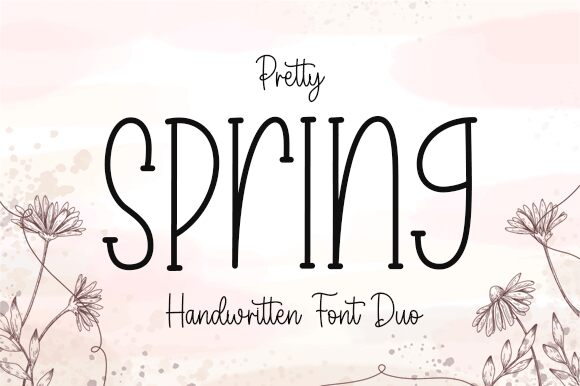
Spring
With its light, handwritten style, Spring font brings a touch of elegance and whimsy to any project.
The condensed width adds a modern and sleek feel, making it perfect for invitations, greeting cards, and stationery. Its playful yet sophisticated look also makes it suitable for branding materials such as logos, packaging design, and social media graphics.
Whether you're working on a wedding suite or creating an eye-catching poster, Spring font is sure to add a delightful flourish to your designs.